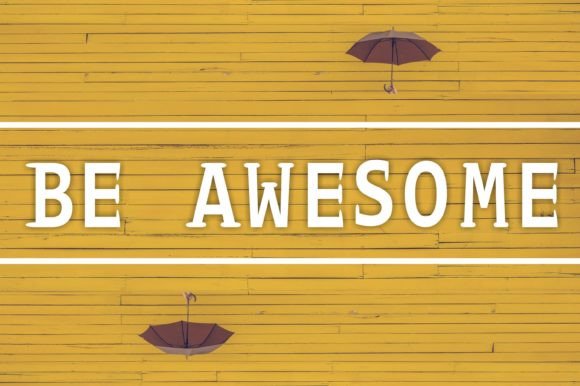
Introducing Be Awesome Font, a Masterpiece Inspired by Creative Genius
Unleash your inner designer with Be Awesome Font, a captivating display font that exudes personality and style. Crafted with precision and an artistic flair, this font is a testament to the power of typography. Dive into a world of boundless creativity as you explore the possibilities that await you with Be Awesome Font.
A Font That Speaks Volumes:
Be Awesome Font is more than just a collection of letters; it's a symphony of visual delight. Each character dances across the page with grace and elegance, captivating the eyes and leaving a lasting impression. Whether you're designing logos, creating eye-catching headlines, or crafting stunning social media graphics, Be Awesome Font will elevate your designs to new heights.
A World of Possibilities:
With Be Awesome Font, the possibilities are endless. Its versatility knows no bounds, making it the perfect choice for a wide range of design projects. From whimsical invitations to sophisticated branding materials, Be Awesome Font seamlessly adapts to your creative vision. Let your imagination soar as you bring your designs to life with this remarkable font.
A Touch of Brilliance:
Be Awesome Font is the brainchild of mhd.usman00, a renowned font designer known for his exceptional artistry and meticulous attention to detail. With Be Awesome Font, mhd.usman00 has created a masterpiece that reflects his passion for typography. Each stroke and curve is carefully crafted to convey a sense of excellence, ensuring that your designs exude professionalism and sophistication.
Join the Creative Revolution:
Be Awesome Font is not just a font; it's a gateway to a world of creative expression. As you immerse yourself in the beauty of this font, you'll discover a newfound appreciation for the art of typography. Let Be Awesome Font ignite your passion for design and inspire you to create masterpieces that captivate and amaze.
Step into the Spotlight:
With Be Awesome Font, you can make a statement and leave a lasting impression. Its bold and confident strokes command attention, ensuring that your designs stand out from the crowd. Whether you're creating marketing materials, website designs, or product packaging, Be Awesome Font will elevate your brand and make it shine.